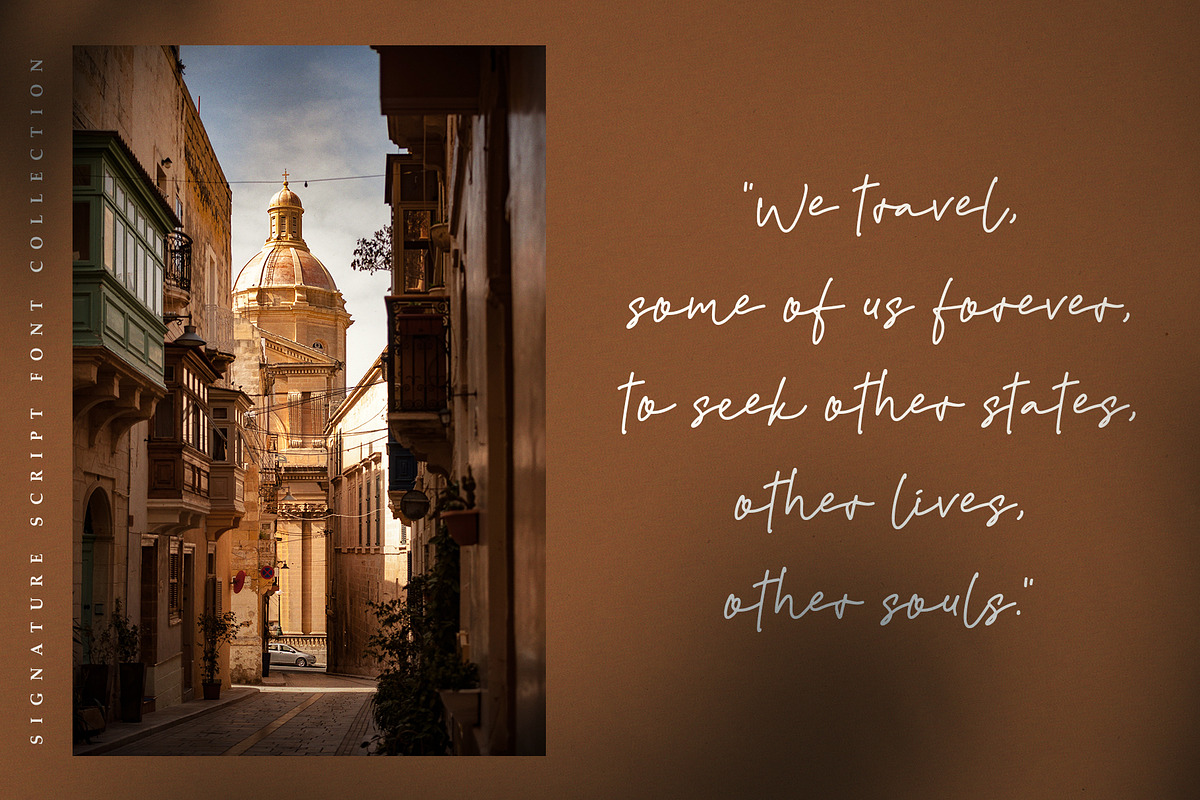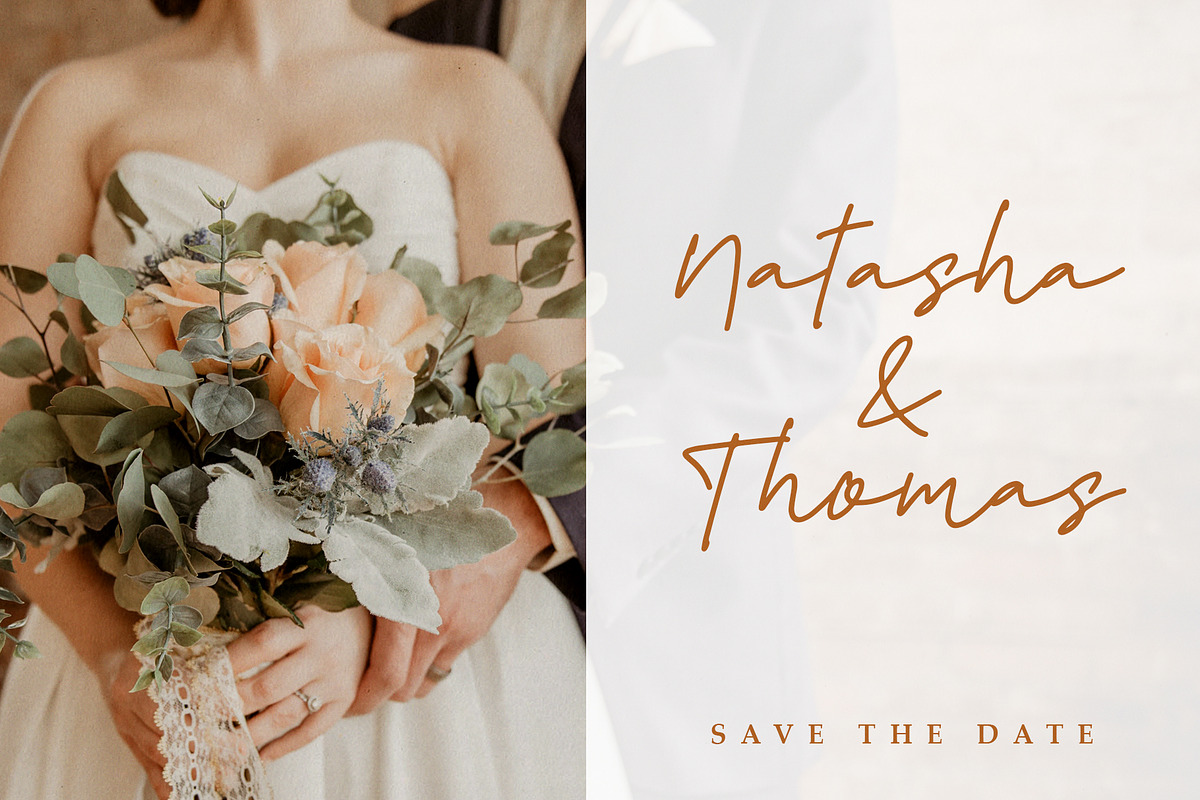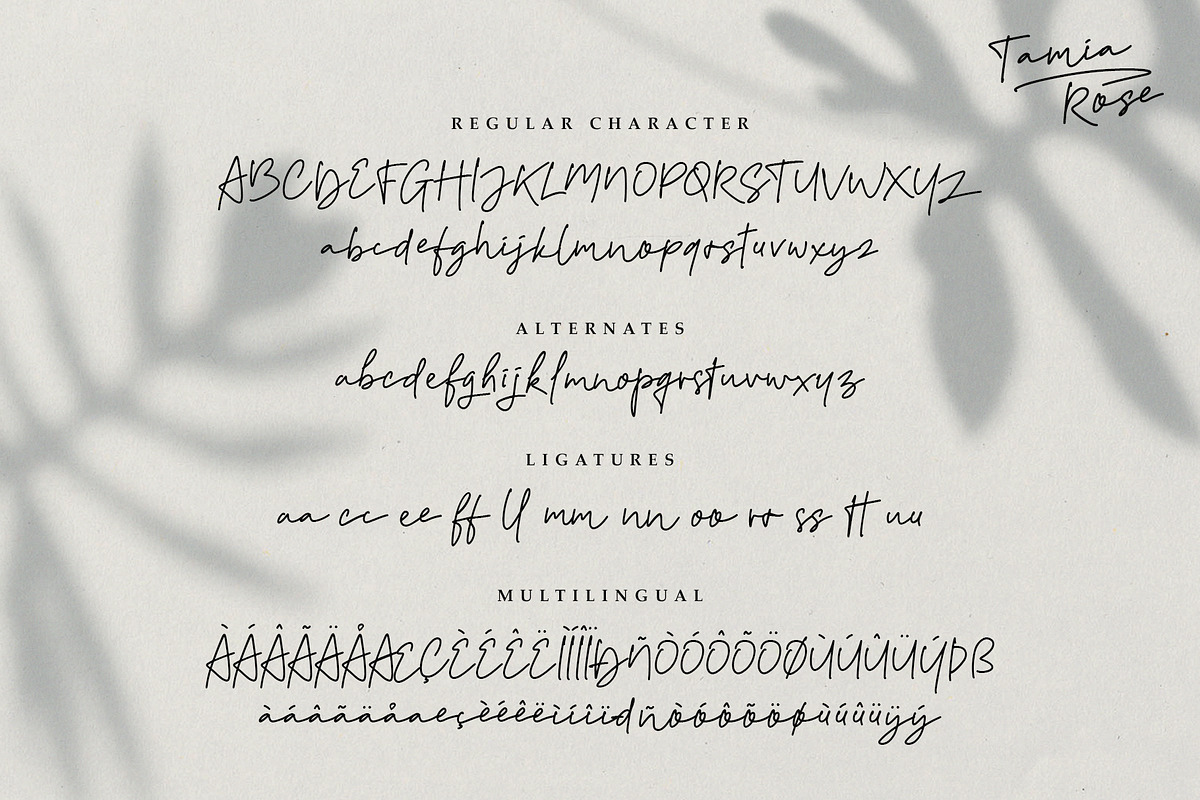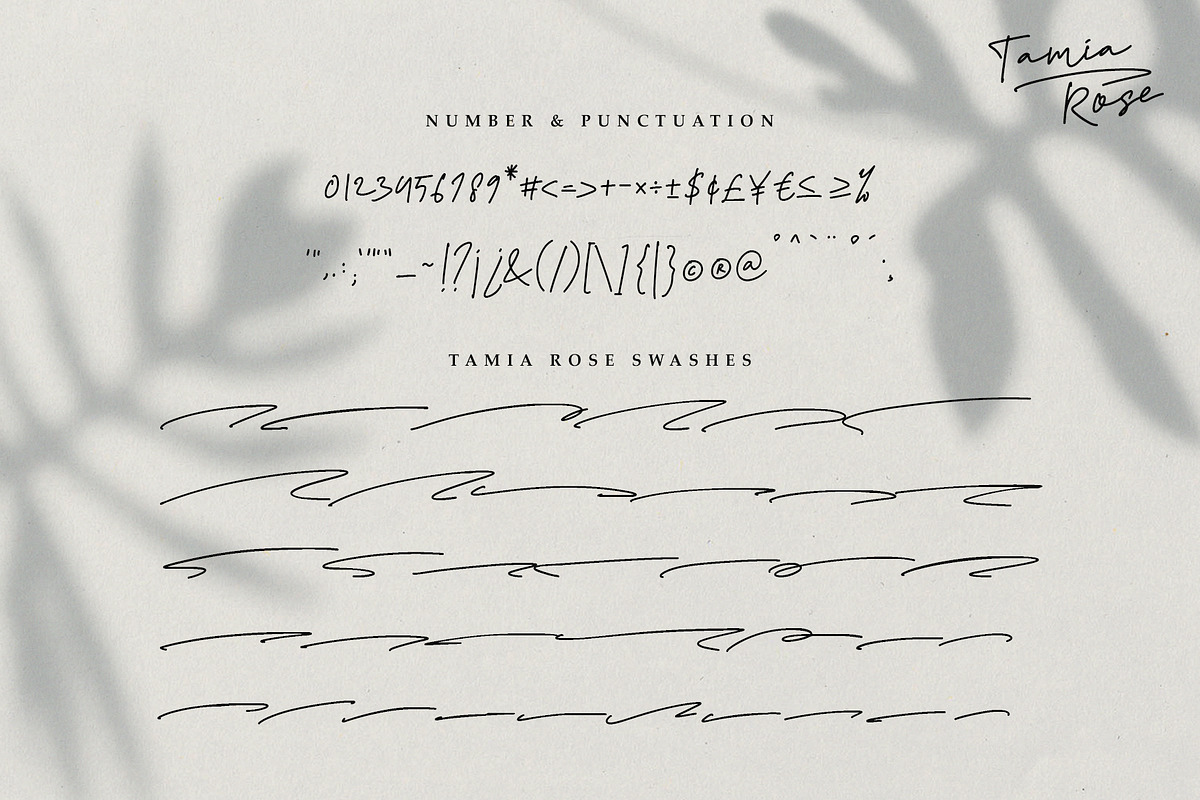
Tamia Rose Signature - Extra Swashes
Introducing Tamia Rose, A fashionable and super-chilled new handwriting font script
Tamia Rose is the right choice of fonts for your projects in the form of logos & branding, print media, social media posts, watermarks or works that require hand styles with a distinctive style.